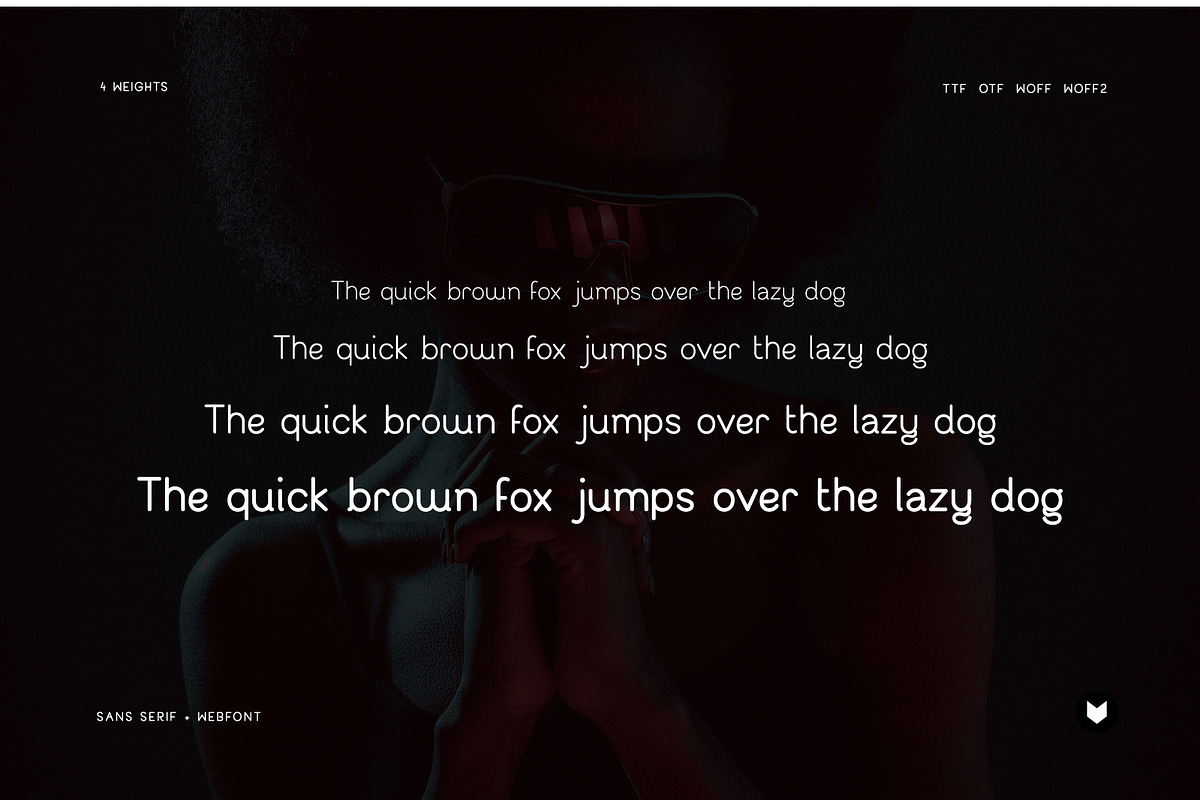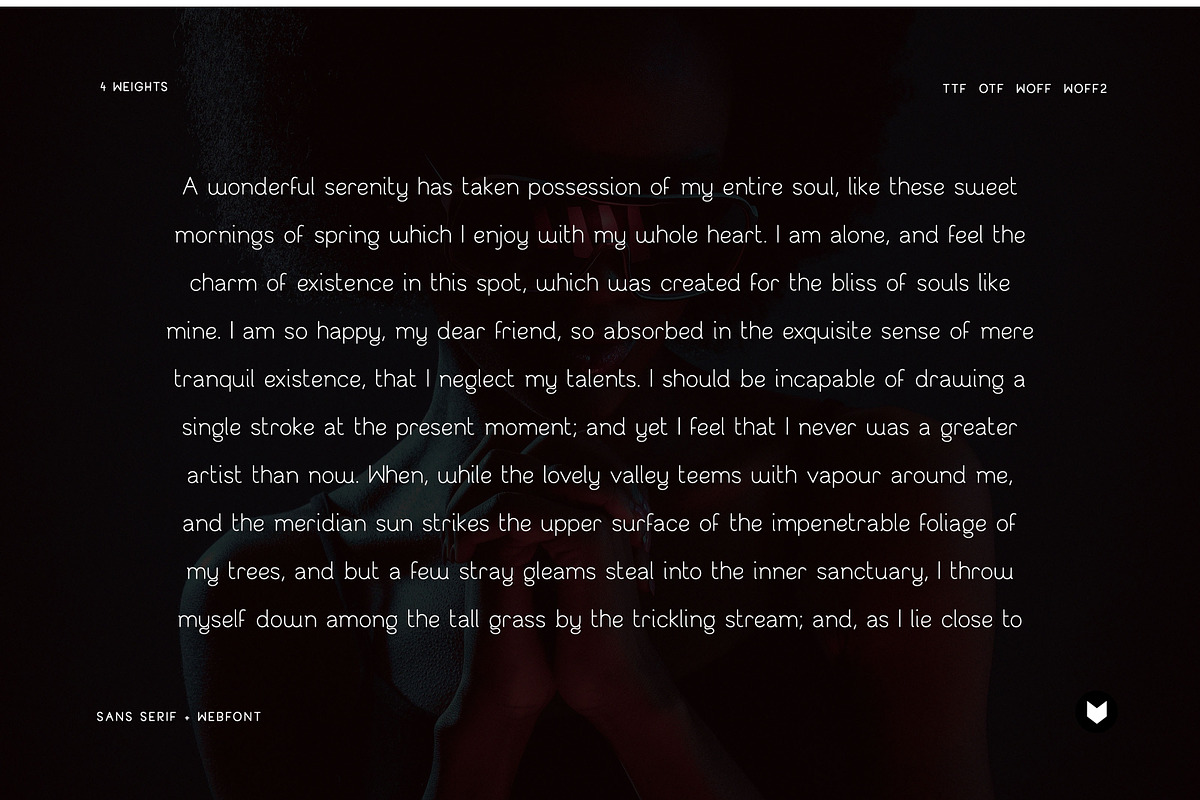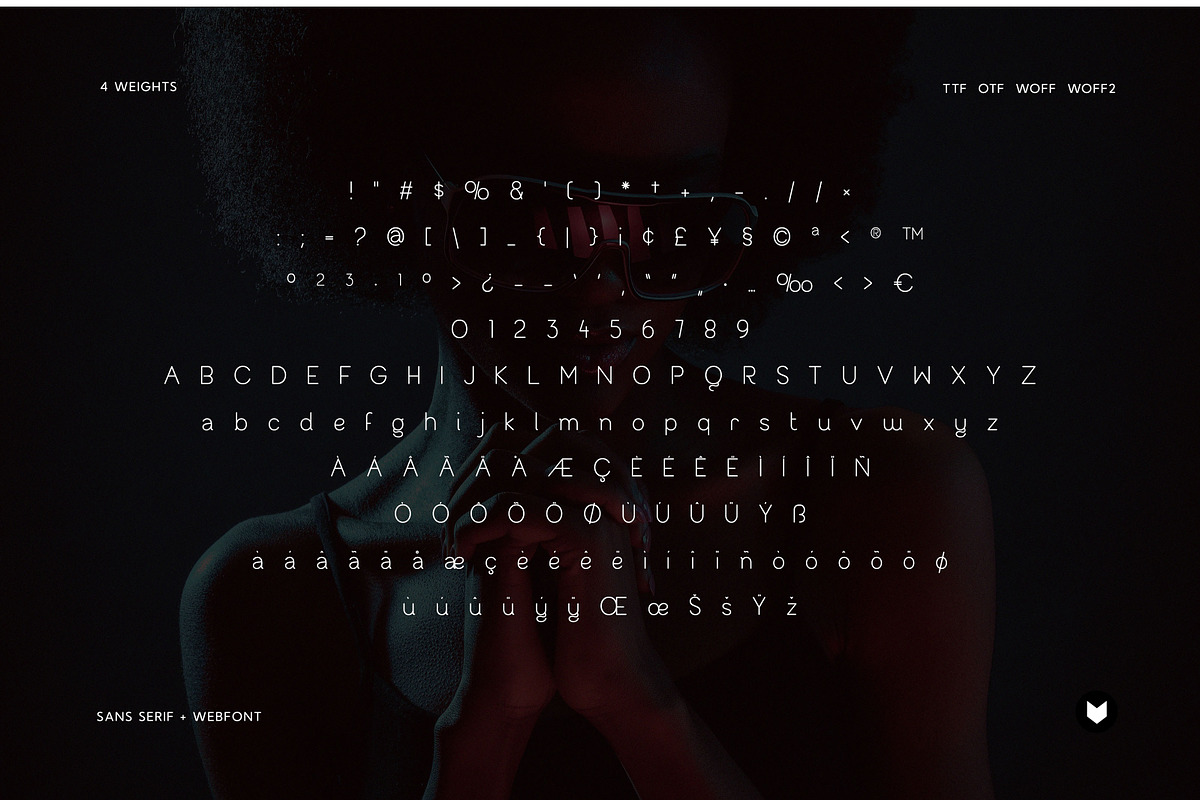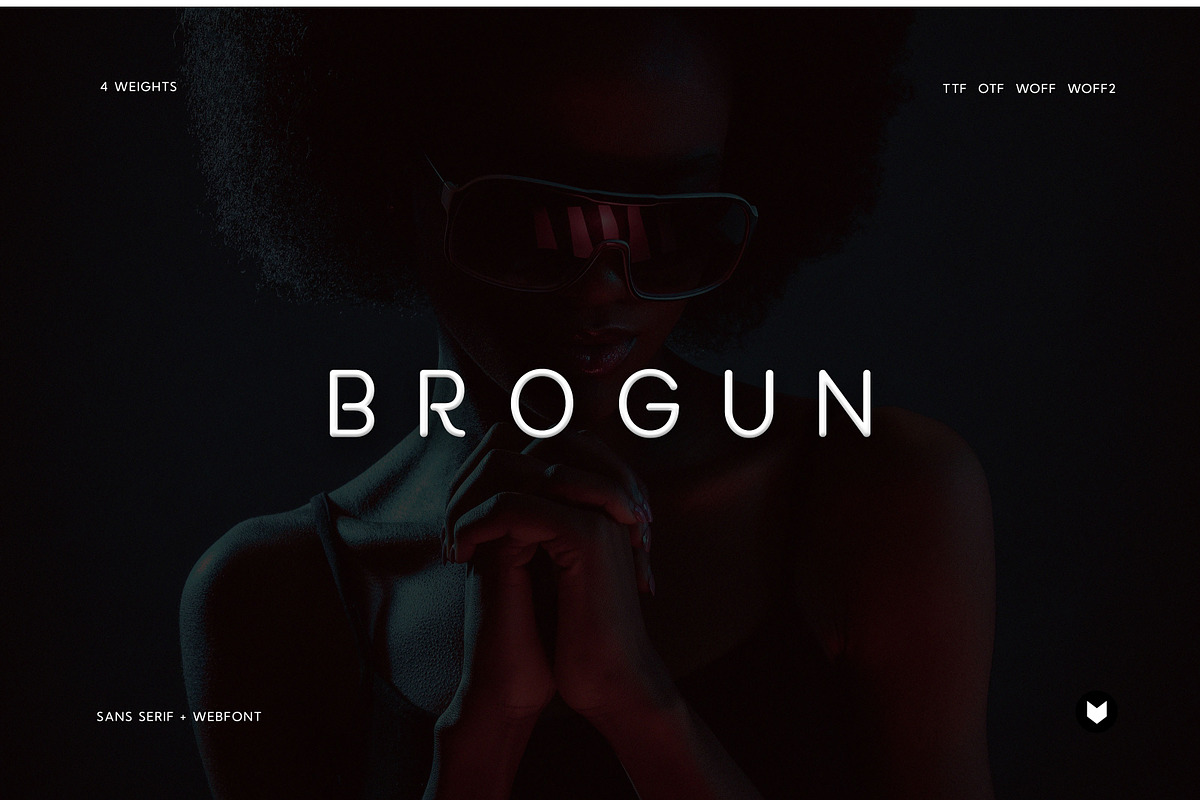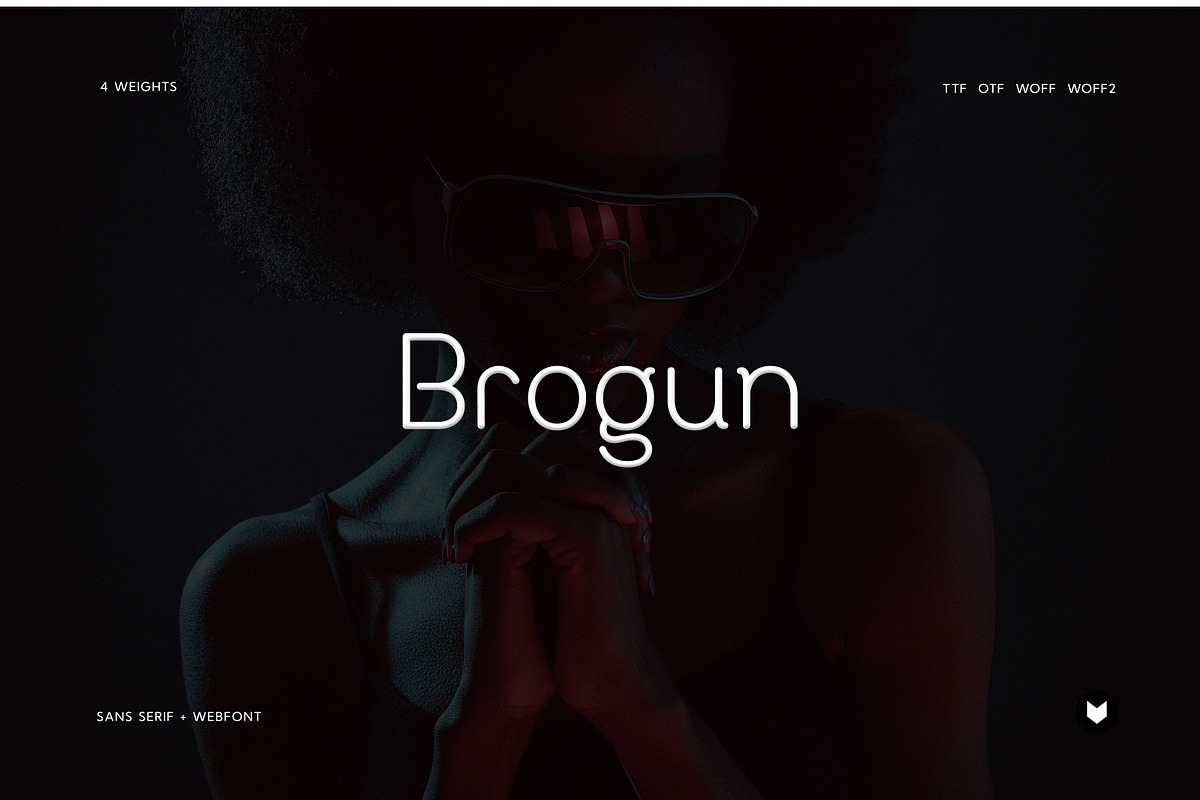
Brogun Display
Brogun is a Minimalist Modern Elegant Typeface with Web-fonts. It's a very versatile font that works great in large and small sizes. Brogun would perfect for branding, logos, headlines, Captions. or simply as a stylish text overlay to any background image.